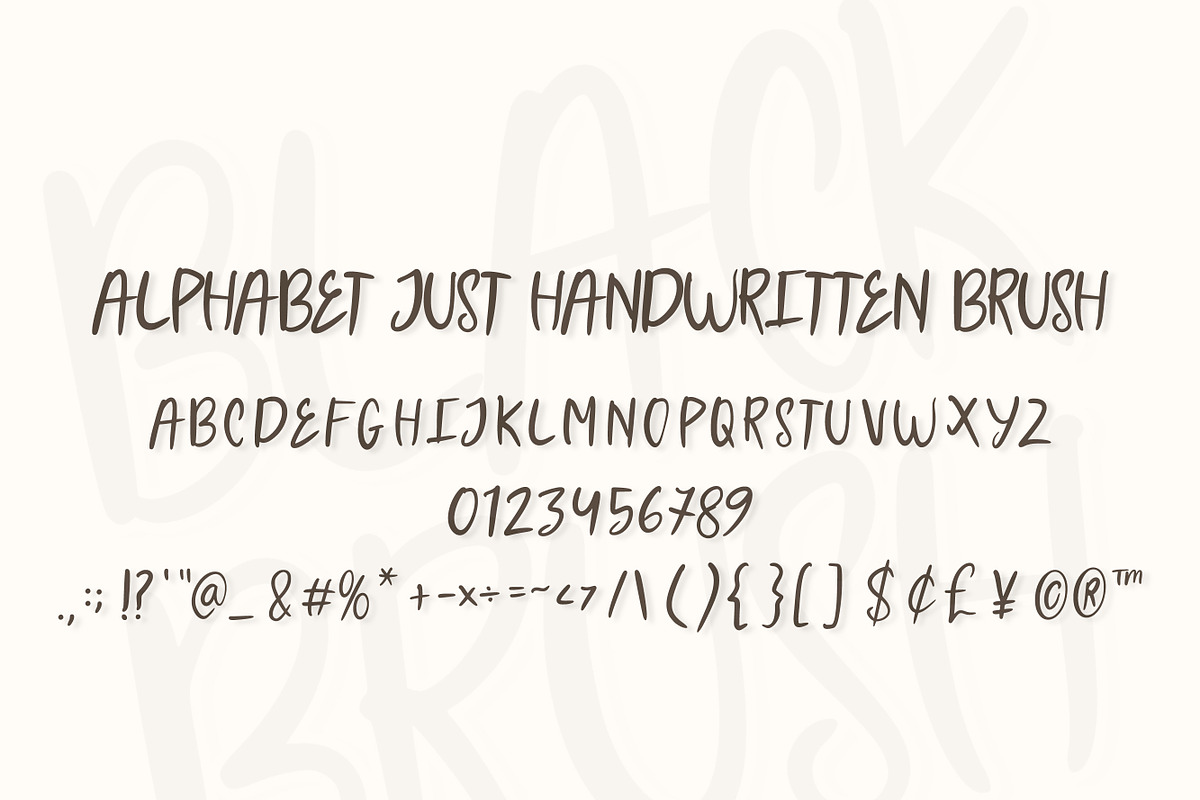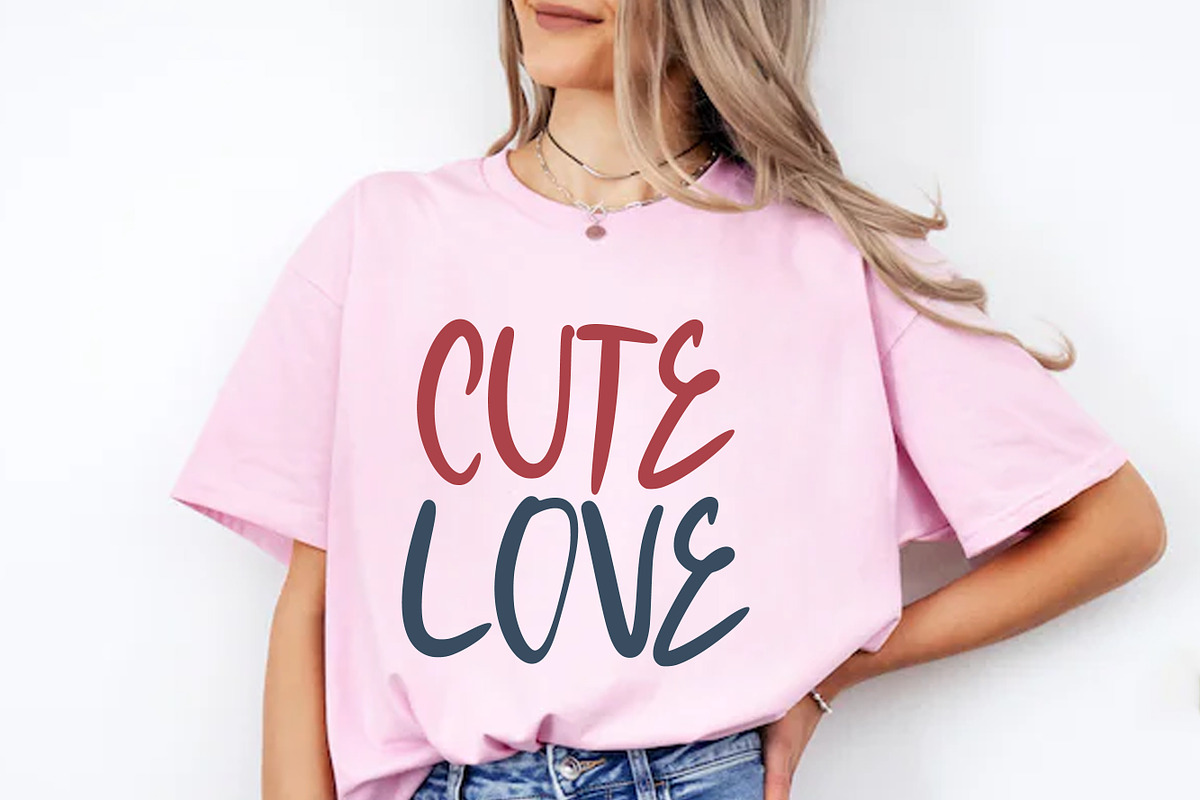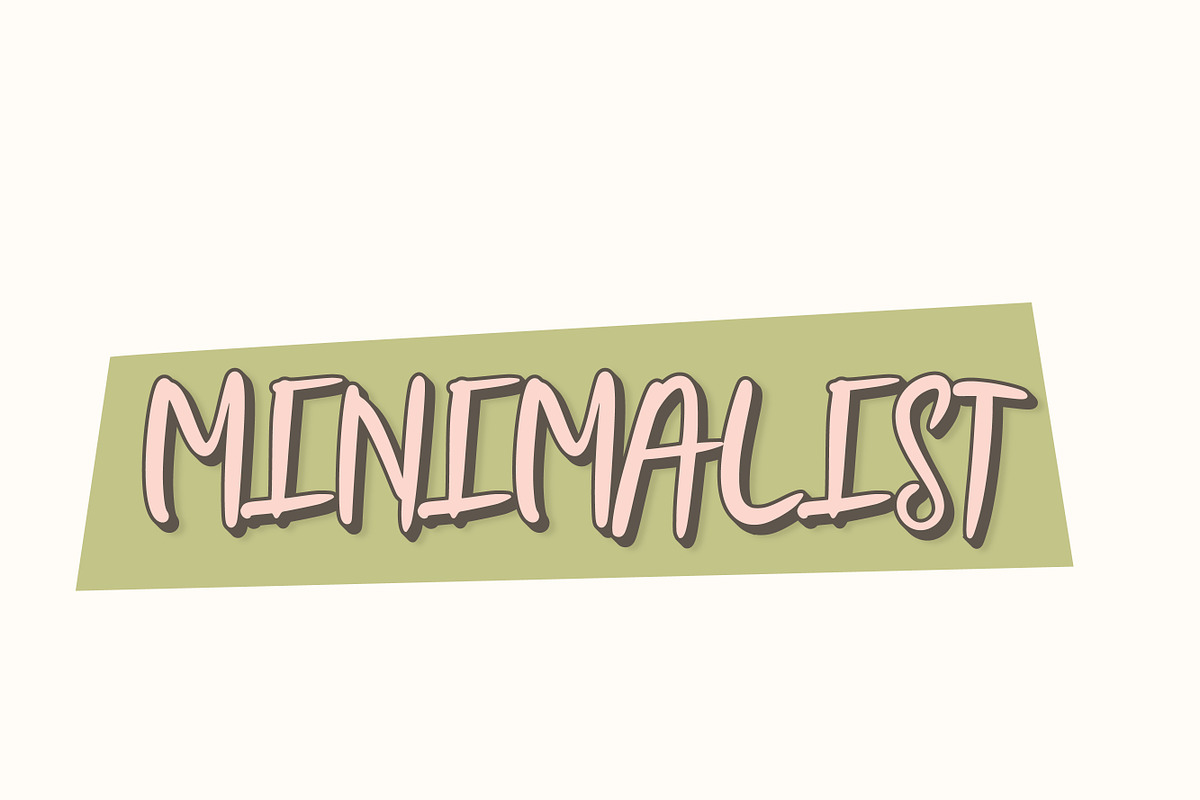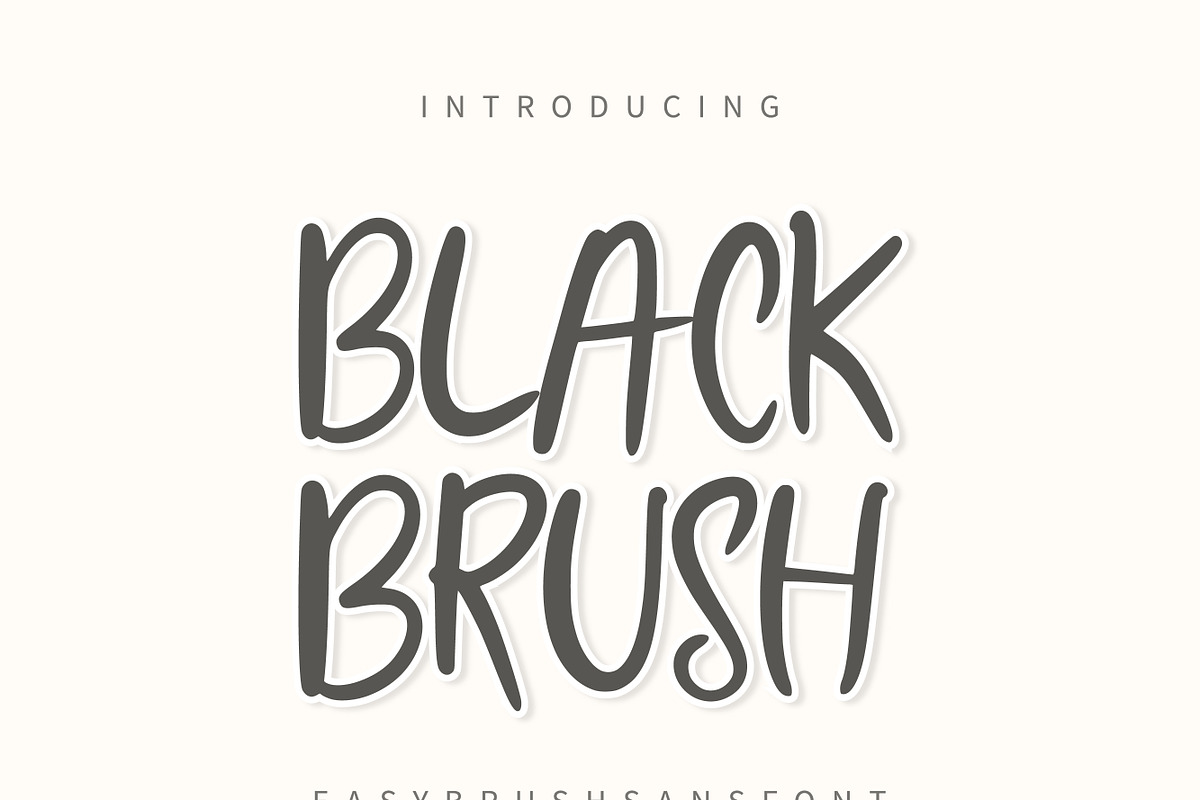
Black Brush | Sans Handwritten
Black Brush is a lovely and timeless handwritten font that adds a sweet touch to your messages of love. It is good choice for making it a lovely choice for spreading love and street art in your designs.